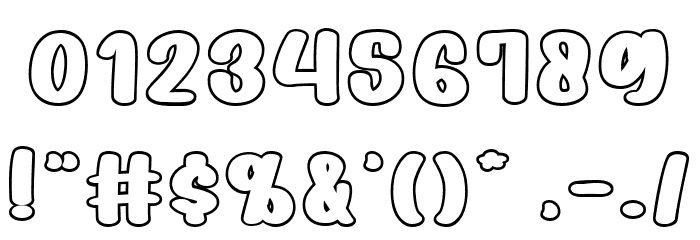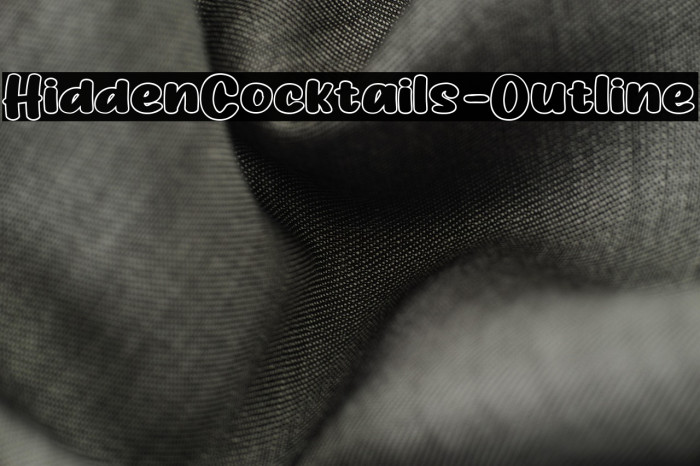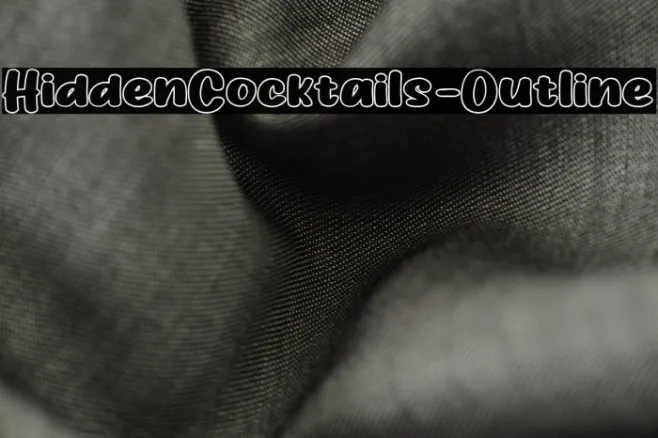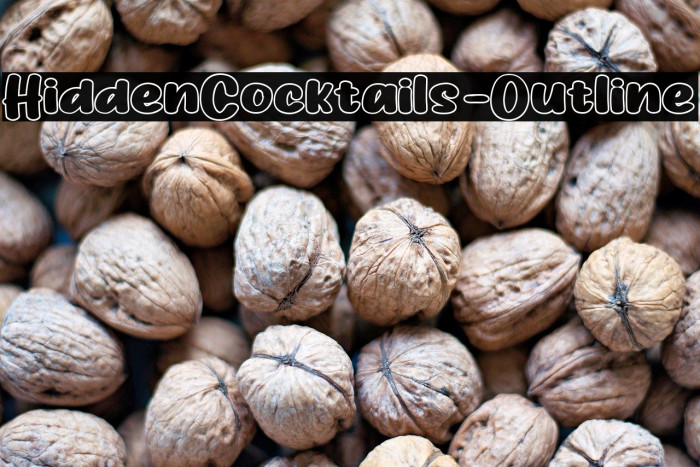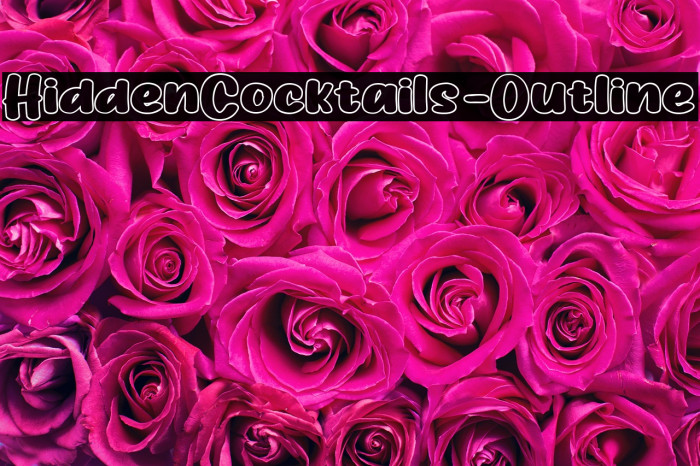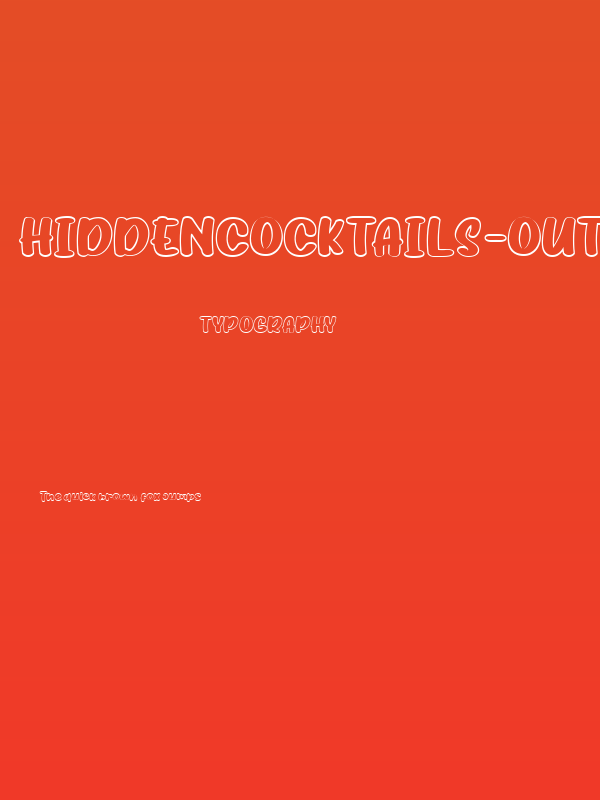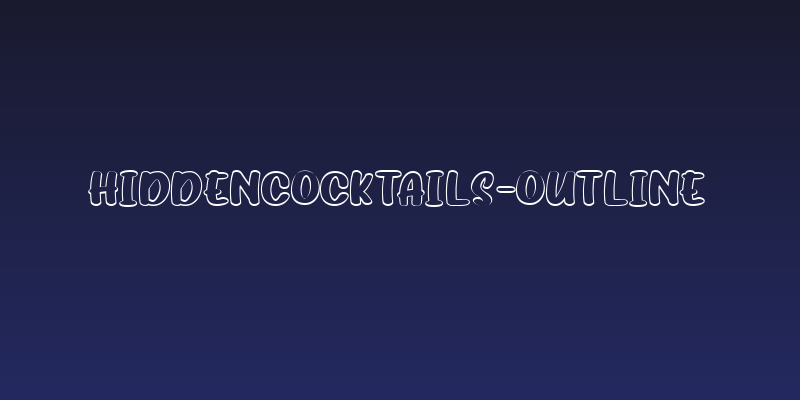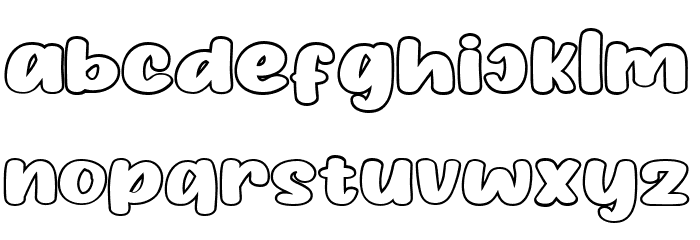
HiddenCocktails-Outline Font
HiddenCocktails-Outline Description
This playful and bold font features an outline style that gives it a unique and eye-catching appearance. The characters are rounded and have a consistent thickness throughout, creating a harmonious and balanced look. The uppercase and lowercase letters maintain a uniform style, with a slightly whimsical touch that adds character. The numbers and special characters are designed to match the overall aesthetic, making them perfect for creative projects. This font's outline design allows for versatility in layering and coloring, making it ideal for vibrant and dynamic compositions.
| Overall Style | Playful, Modern |
| Proposed Projects | Ideal for children's books, playful branding, posters, and creative digital designs. |